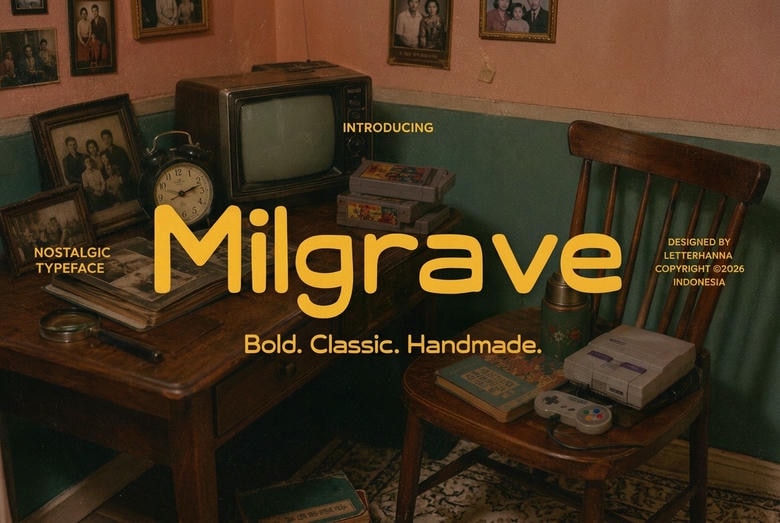
Milgrave Font
Milgrave is a geometric font that does more than just show words. It gives them personality right away. The design is based on classic geometric fonts, with rounded shapes, even stroke widths, and carefully built letterforms. If you look closely, you’ll notice small, intentional details inspired by organic typography. The lowercase “a” and “g” use simple, single-story shapes, similar to handwriting. The round dots on the “i” and “j” bring a playful touch.
Milgrave is a good fit for projects that need to feel friendly and approachable, but still look polished. It works well for children’s brands, bakeries, cafés, boutique packaging, greeting cards, apparel graphics, and social media posts. The bold uppercase letters help headlines stand out, and the rounded lowercase letters keep the look relaxed.
Milgrave Sans Serif Font